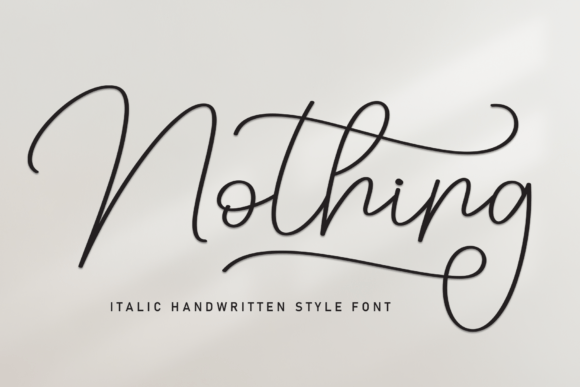
Embark on a Typographic Odyssey with Nothing Font: Where Elegance Meets Originality
In the realm of digital artistry, fonts hold the power to transform words into captivating expressions. They have the ability to elevate your designs, leaving an indelible mark on your audience's minds. Among the vast ocean of fonts, Nothing Font emerges as a radiant gem, a testament to the boundless creativity of its creator, Roronoa Zoro.S.P.D.
Nothing Font is an extraordinary script font, meticulously crafted to bring a touch of sophistication and charm to your designs. Its essence lies in the harmonious blend of classic calligraphy and modern aesthetics, resulting in a font that is both timeless and captivating. Each letterform exudes an air of elegance, flowing seamlessly from one to the next, creating a visual symphony that dances across the page.
With Nothing Font as your creative companion, you can effortlessly add a touch of refinement to your projects. Whether you're designing logos, branding materials, social media graphics, or website layouts, this font has the versatility to elevate your work to new heights. Its delicate strokes and graceful curves lend a touch of personality and warmth, making it an ideal choice for projects that demand a personal touch.
Unleash the Creative Potential Within:
- Logo Design: With Nothing Font as your ally, you can create logos that exude sophistication and professionalism. Its intricate details and graceful letterforms will ensure that your brand stands out from the crowd, leaving a lasting impression on your target audience.
- Branding Materials: Elevate your branding materials with the timeless elegance of Nothing Font. From business cards and letterheads to brochures and flyers, this font will add a touch of class and distinction, ensuring that your brand's message is communicated with clarity and impact.
- Social Media Graphics: In the vibrant world of social media, Nothing Font will help you create captivating graphics that demand attention. Its visually striking letterforms will make your posts, stories, and advertisements stand out in the crowded digital landscape, attracting the eyes of your followers and leaving a lasting impression.
- Website Layouts: Transform your website into a visual masterpiece with Nothing Font. Its delicate strokes and flowing curves will add a touch of elegance to your website's layout, creating an immersive experience for your visitors that will keep them engaged and captivated.
Embrace the Beauty of Nothing Font and Witness the Transformation:
Nothing Font is more than just a font; it's an artistic expression that will breathe life into your creative endeavors. Its enchanting beauty will captivate your audience, leaving them spellbound by the visual masterpiece you've created. So, embark on this typographic odyssey with Nothing Font and let your creativity soar to new heights.